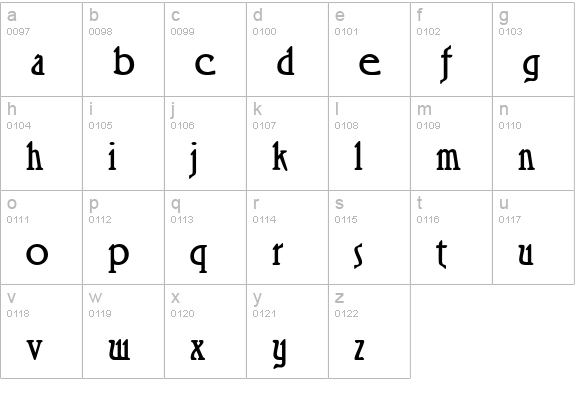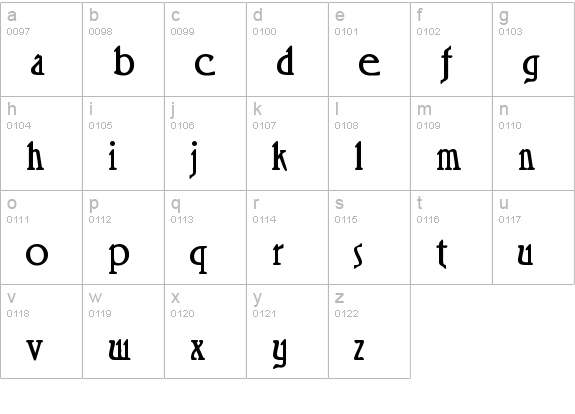
Roskell Font Details
Roskell font is a modern and stylish typeface that exudes elegance and sophistication. With its sleek lines and distinctive curves, Roskell is perfect for adding a touch of sophistication to any design project. Whether you're creating a logo, designing a website, or working on a branding project, Roskell font will elevate your work to the next level. The best part? Roskell font is available for free download at FontsMarket.com. This means you can easily access this beautiful font and use it in your projects without any cost. With its versatility and timeless appeal, Roskell font is a must-have in any designer's toolkit. Don't miss out on this amazing opportunity to enhance your designs with the stunning Roskell font - download it for free today!